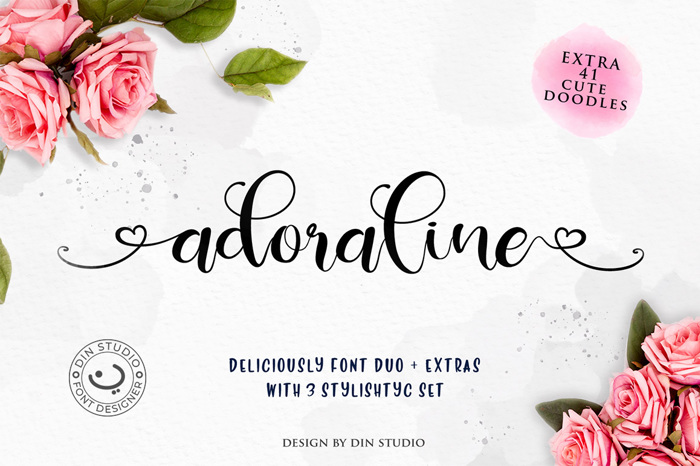
Deliciously Regular Font
Product Description :
Deliciously Font Duo Set is a modern font script. This font is ideal for logos, branding projects, product packaging, quotes, greeting cards, and other lovely projects.
Features include:
• Alternates
• Stylistic Sets
• Multilingual Supports
• PUA Encoded
• Numerals and Punctuations